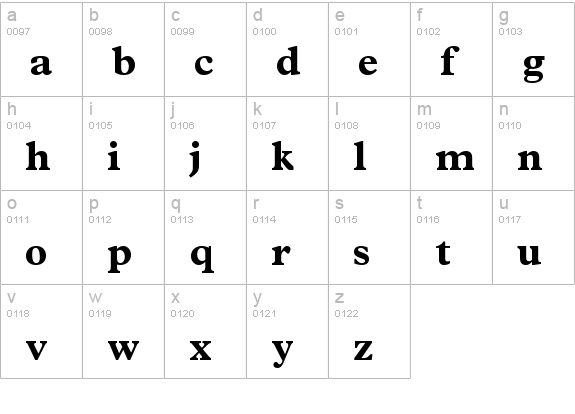
Terminus Black SSi Bold Font Details
Terminus Black SSi Bold is a maximum-weight, dramatic variant in the Terminus typeface family \xE2\x80\x94 well suited to maximum-impact headlines, posters, and packaging.
Terminus Black SSi Bold font is a stunningly bold and impactful typeface that demands attention. Its strong and sturdy letterforms exude power and confidence, making it the perfect choice for headlines, titles, and any design project that needs to make a bold statement. This font features a sleek and modern design, with sharp edges and clean lines that give it a contemporary and sophisticated look. The thick strokes and subtle variations in weight create a sense of depth and dimension, adding to its visual appeal. Terminus Black SSi Bold font is not only visually striking, but it also offers excellent readability, ensuring that your message will be communicated clearly and effectively. Whether used in print or digital media, this font will captivate and engage your audience, leaving a lasting impression. The best part is that Terminus Black SSi Bold font is freely available to download at FontsMarket.com. This means that you can easily access and use this exceptional font for your personal and commercial projects without any financial constraints. Take advantage of this opportunity to enhance your designs with a font that is both stylish and versatile. Add a touch of elegance and sophistication to your designs with Terminus Black SSi Bold font. Download it now from FontsMarket.com and unleash its power and beauty in your creative endeavors.